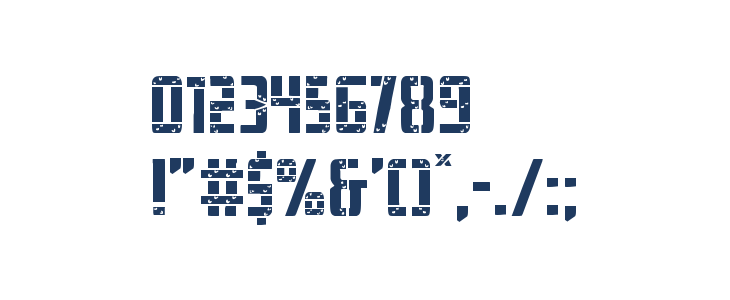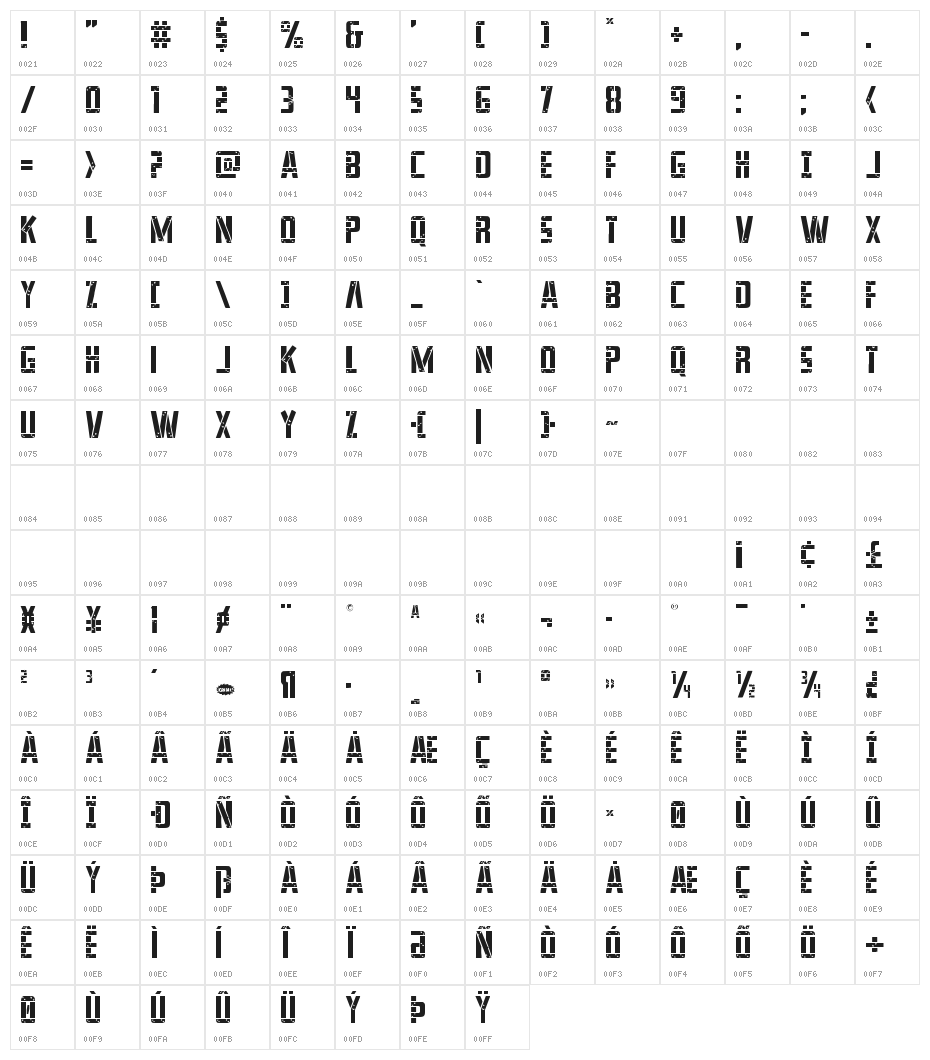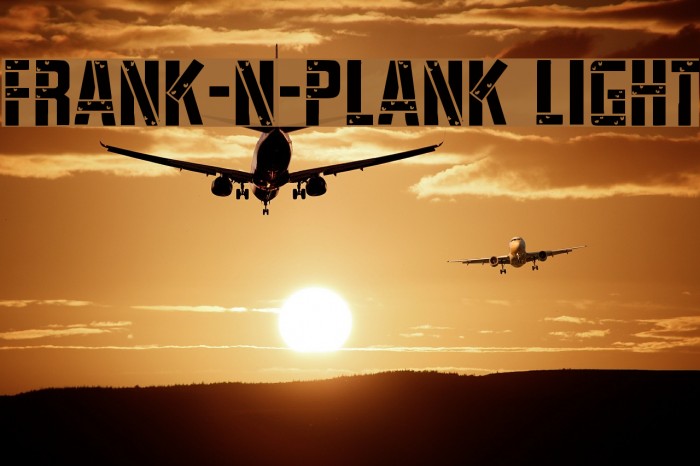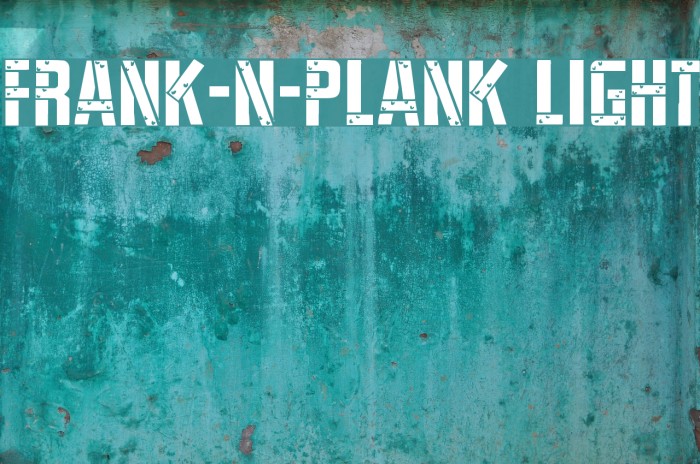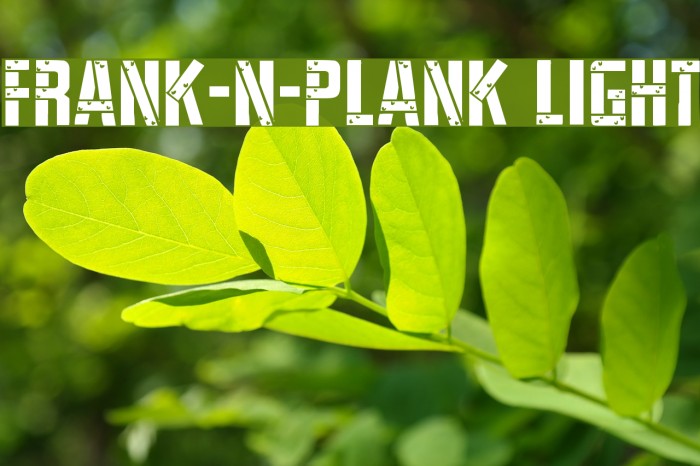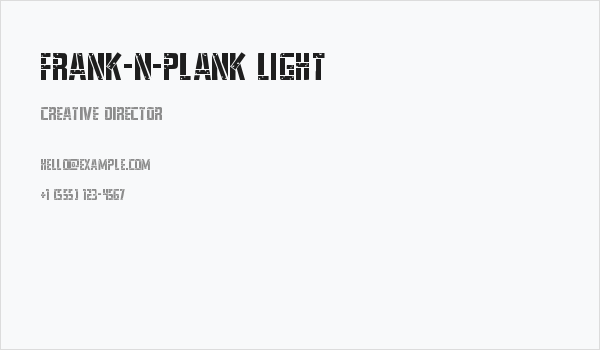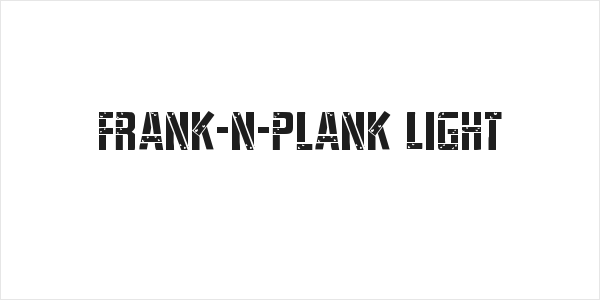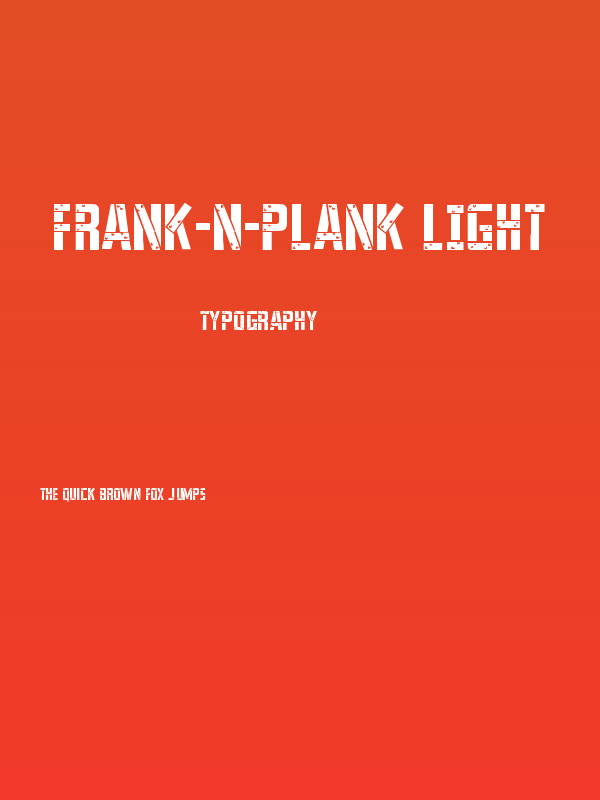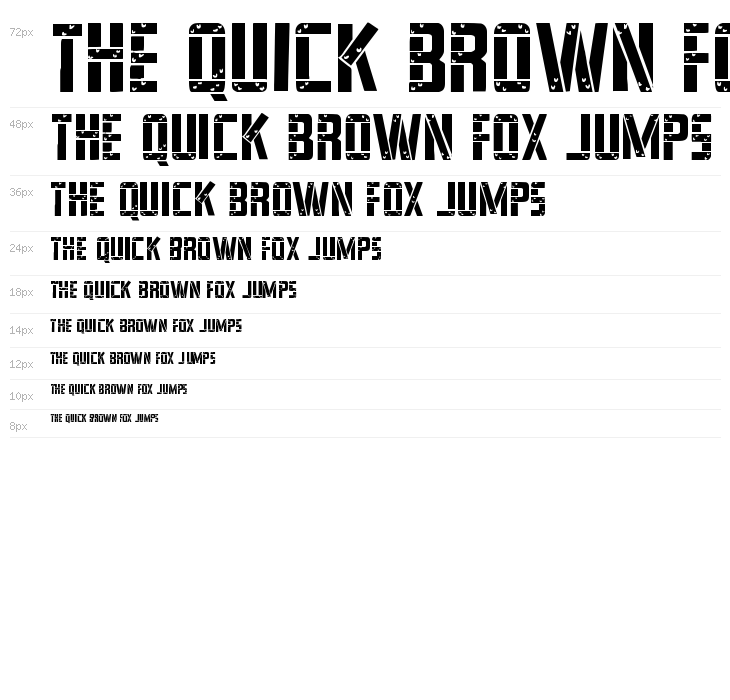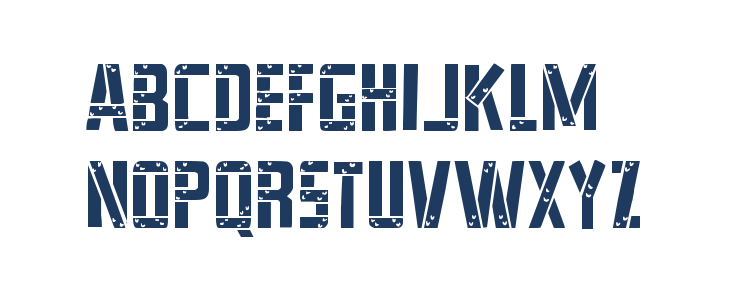
Frank-n-Plank Light Font
Frank-n-Plank Light Description
This font features a bold, industrial design with a unique pattern of bolts and screws embedded within each character, giving it a mechanical and rugged appearance. The uppercase letters are uniform in height, with sharp angles and straight lines that convey a sense of strength and durability. The lowercase letters maintain the same robust style, ensuring consistency across all text. Numbers and special characters are designed to match the bold aesthetic, making them stand out prominently. The font's distinct style is ideal for projects that require a strong, industrial look.
| Overall Style | Industrial, Mechanical |
| Proposed Projects | Ideal for branding, posters, and signage that require a strong, industrial theme. |